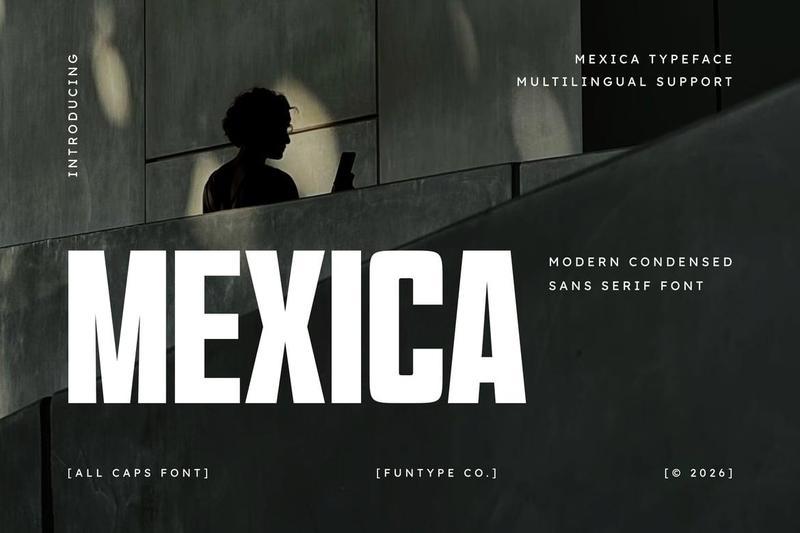
**Mexica Modern Condensed Sans Serif Font**
**Mexica** is a bold, sleek, and high-impact modern condensed sans serif font, meticulously engineered to bring a commanding structural presence, precision, and architectural power to contemporary display layouts. Designed as an all-caps typeface with towering vertical proportions and a dense geometric profile, Mexica offers a premium professional aesthetic that gives headlines an immediate, authoritative corporate finish.
This font family is the definitive choice for creative directors and digital media designers looking to integrate a space-efficient, heavyweight typography system into their brand assets. Whether you are developing tech enterprise logotypes, industrial device packaging, modern streaming media headers, cinematic movie posters, or bold website landing pages, Mexica delivers a flawless balance of raw block power and refined minimalism.
**Main Features:**
– Modern Condensed All-Caps Layout: Optimized for dense horizontal spacing and high-impact title composition.
– Towering Geometric Dimensions: Elongated vertical builds crafted to secure immediate audience attention.
– Multilingual Support: Fully loaded and prepared for cross-platform international marketing campaigns.
– Industrial & Corporate Aesthetic: Clean linear strokes with sharp cut accents perfect for advanced digital infrastructure design.
**Best Used For:**
Technology branding, architectural presentation covers, heavy manufacturing logos, corporate digital headers, cinematic action movie titles, electronics product packaging, and high-energy event promotional material.